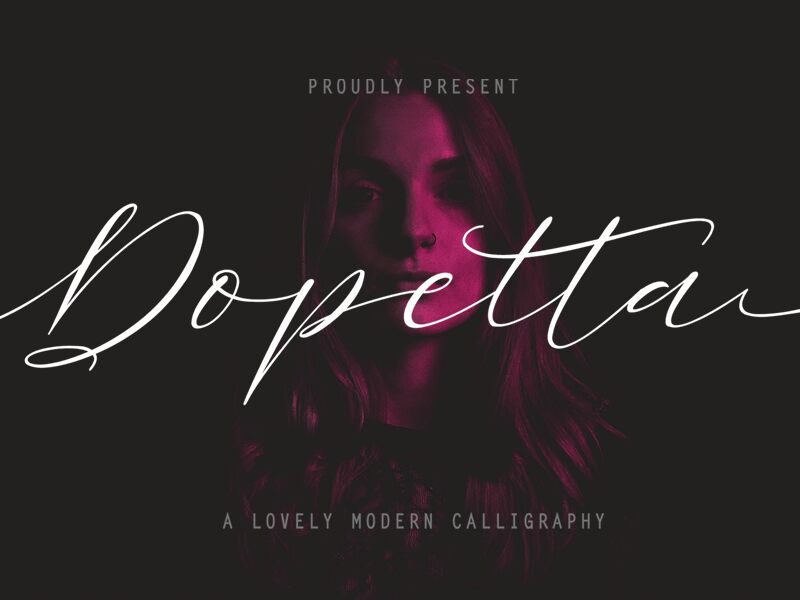
Dopetta is a modern calligraphy font designed by Aditiyo Dwi Putranto. With its light weight and semi-expanded width, Dopetta is perfect for creating elegant designs that exude sophistication and charm. This font will work wonders in invitation cards, wedding designs, branding projects, and more. Its stylish letterforms are sure to capture the attention of your audience and leave a lasting impression. Whether you're looking to create a romantic design or something more modern and chic, Dopetta has got you covered with its stunningly beautiful calligraphic style. Add this font to your collection today and elevate your designs to new heights!